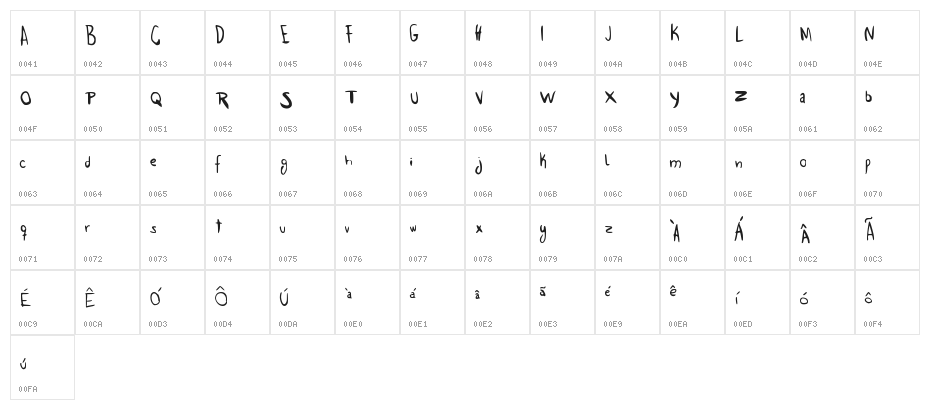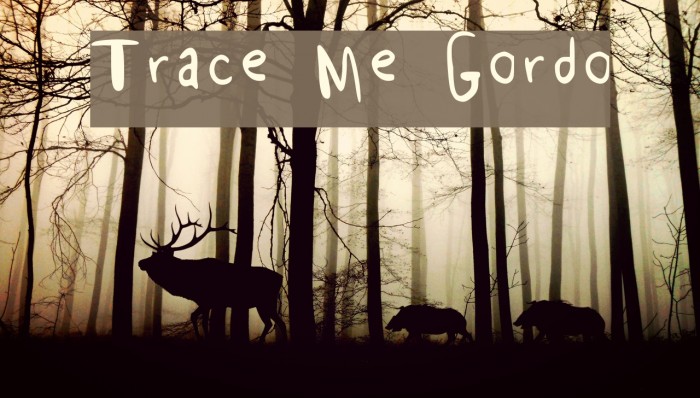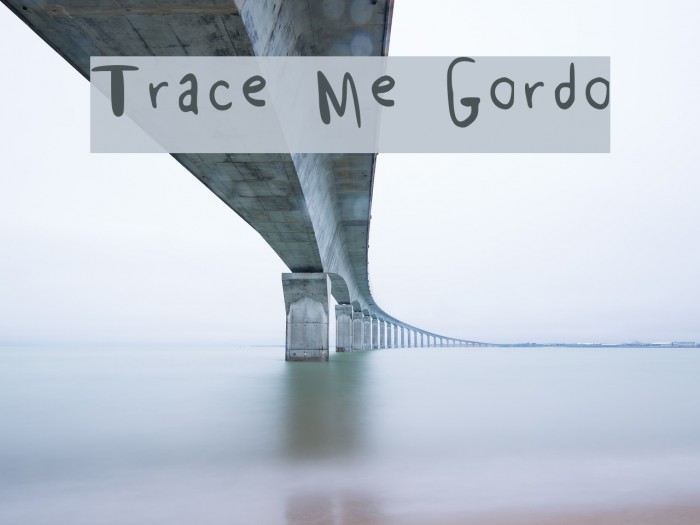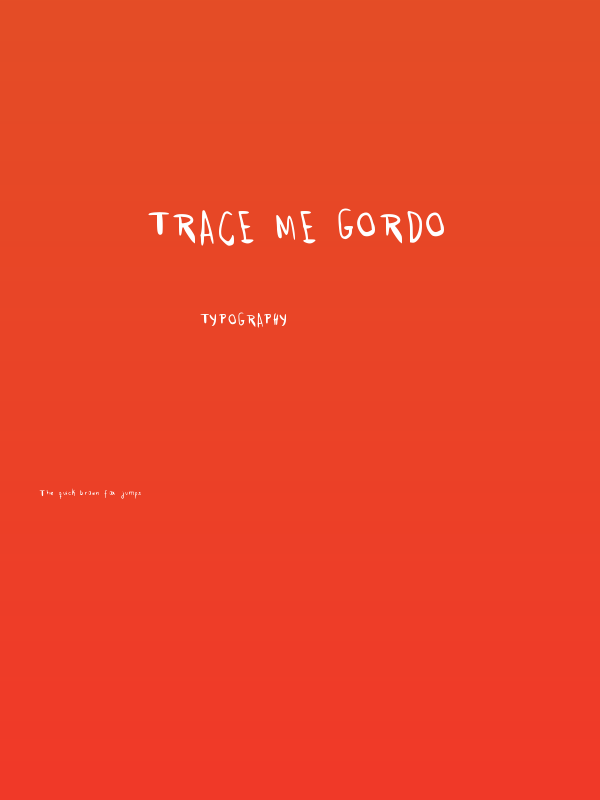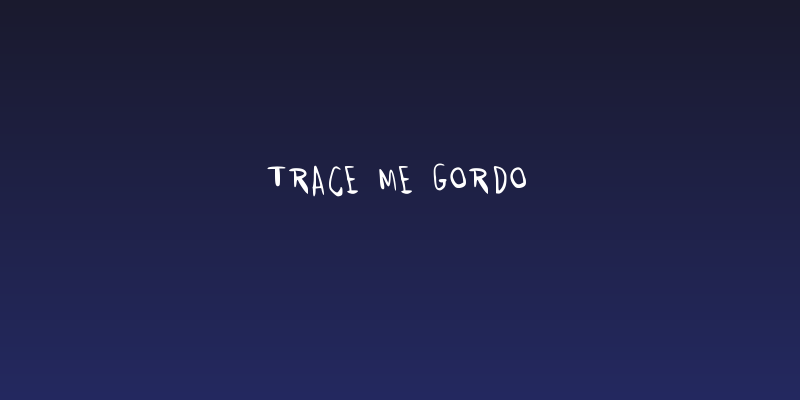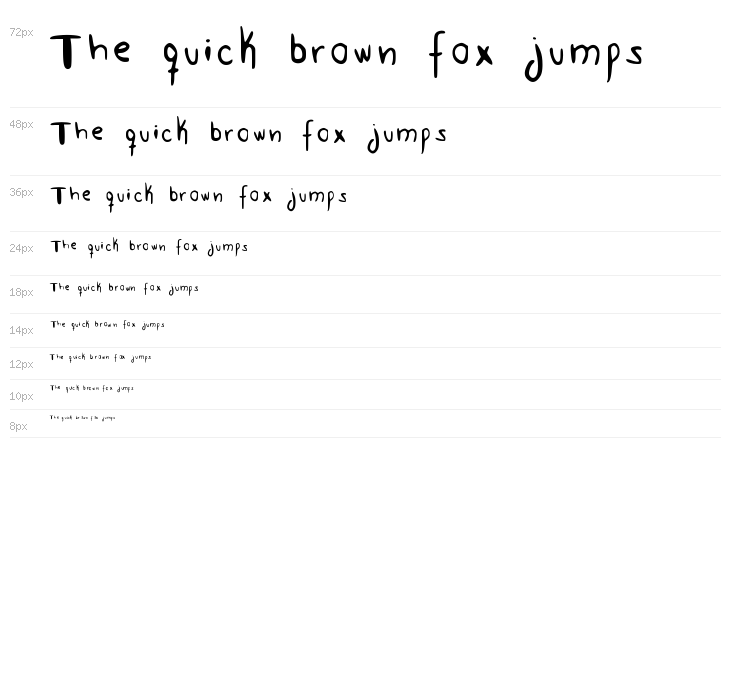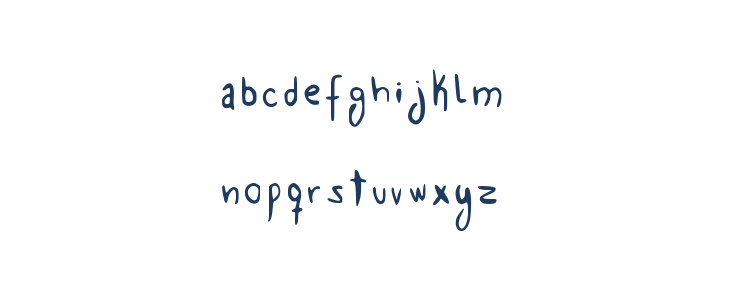
Trace Me Gordo Font
Trace Me Gordo Description
This playful and whimsical font features a hand-drawn aesthetic with irregular strokes and a casual feel. The uppercase letters are bold and slightly uneven, giving a sense of movement and energy. The lowercase letters maintain a consistent style with a quirky charm, characterized by varying heights and playful loops. The numbers and special characters follow the same lively design, making the font suitable for creative and informal projects. Its unique style is perfect for adding a personal touch to any design.
| Proposed Projects | Ideal for children's books, greeting cards, playful branding, and creative posters. |